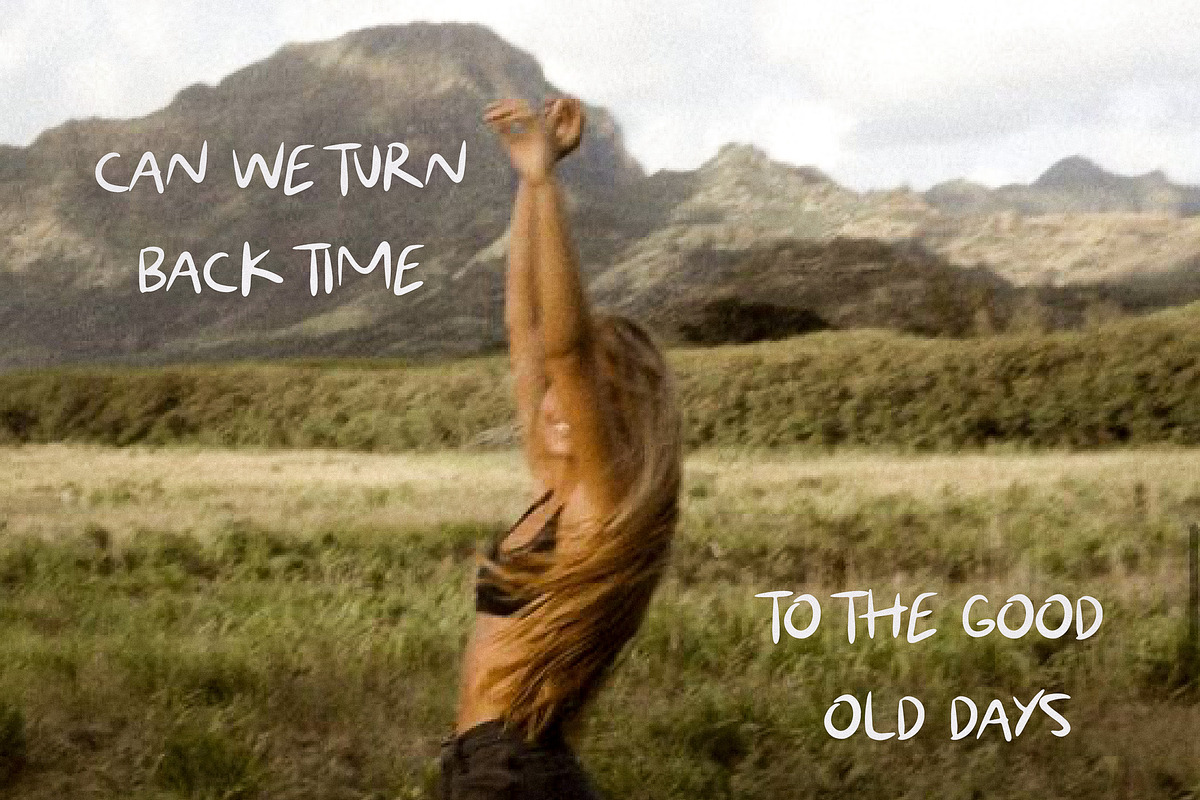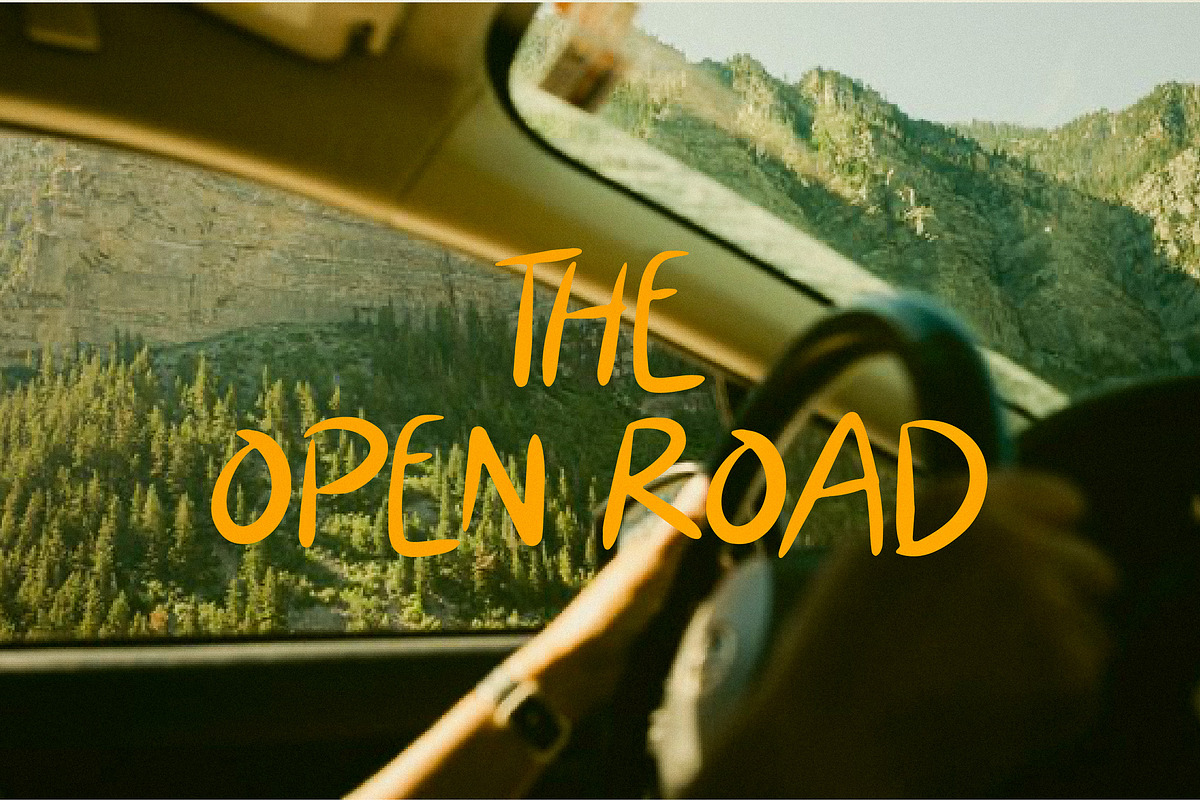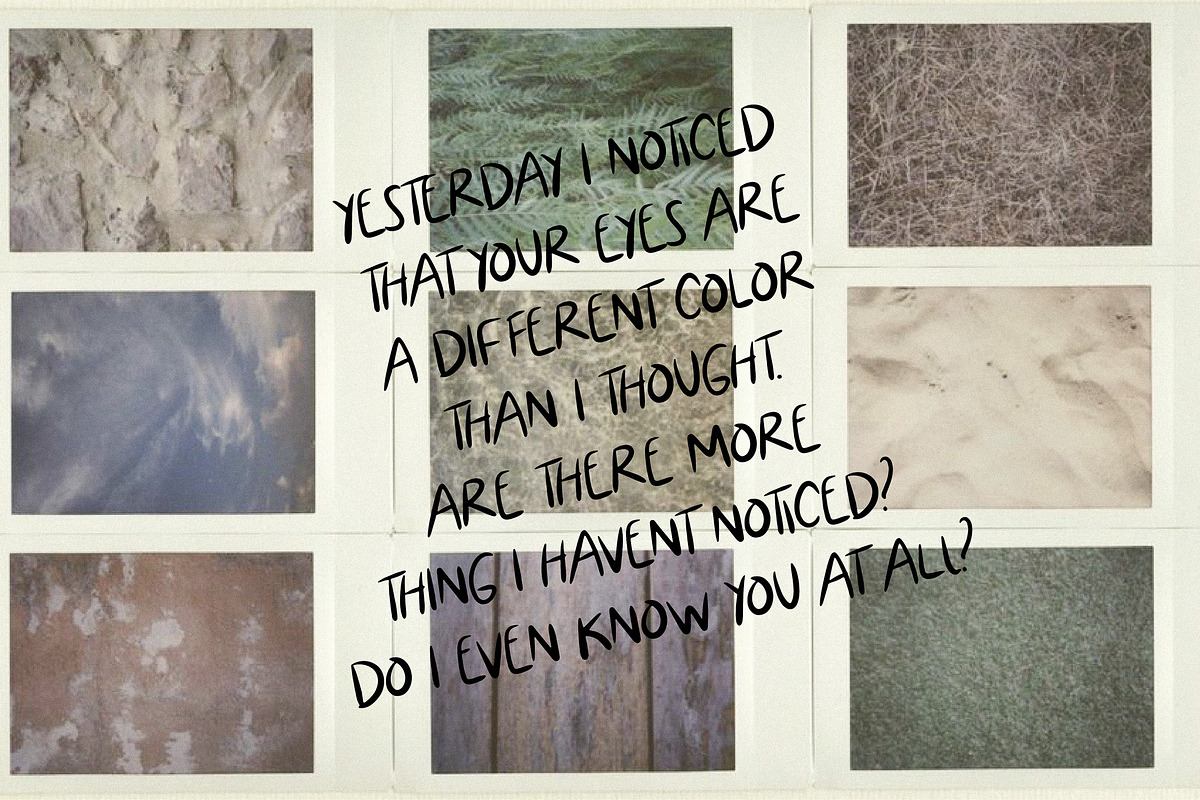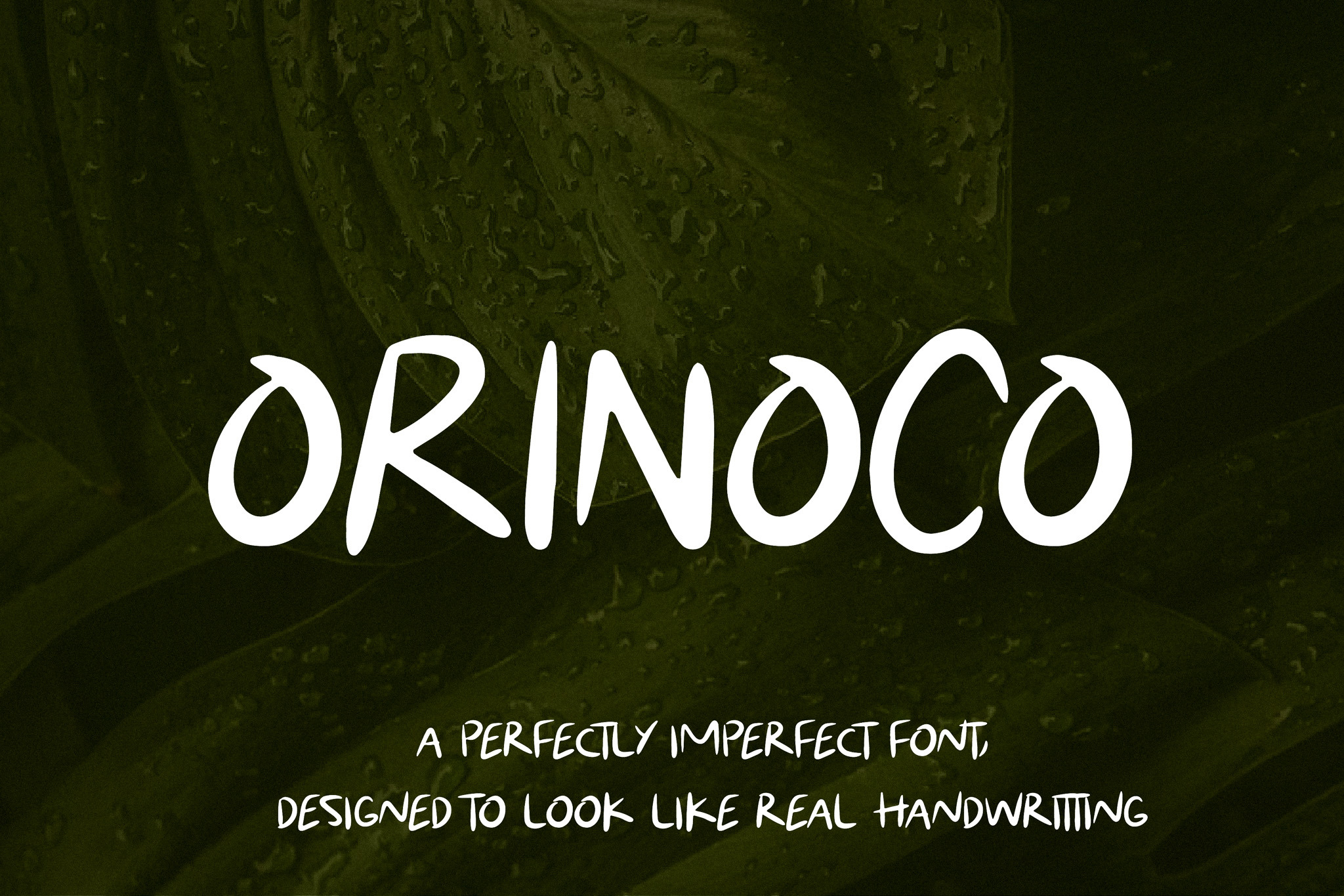
Orinoco Handwritten Font
Capture the essence of spontaneous handwritten charm with Orinoco! This font is crafted to evoke the feel of casual, carefree scribbles, bringing a touch of authenticity to your designs. With its natural, fluid strokes, Orinoco is perfect for social media posts, branding, wedding invitations, and more. Let your projects come to life with this font made to look like real handwriting.